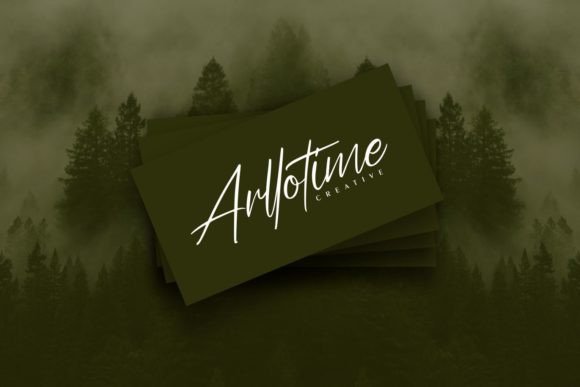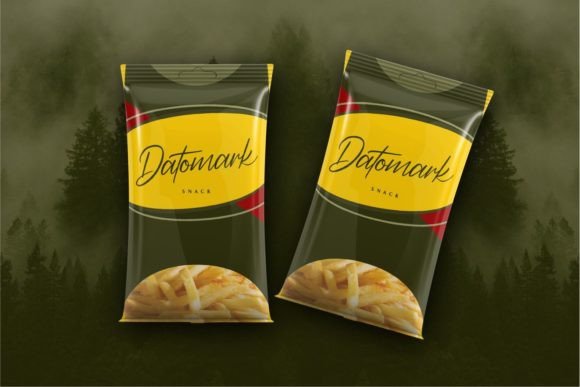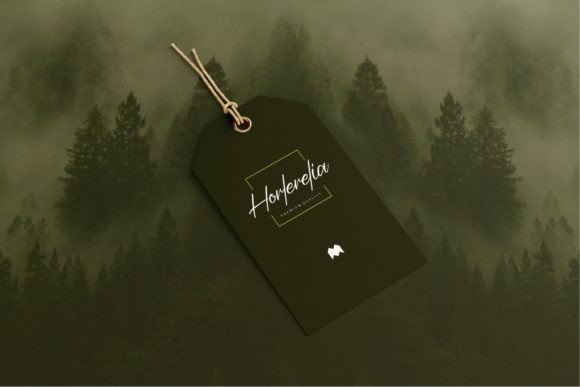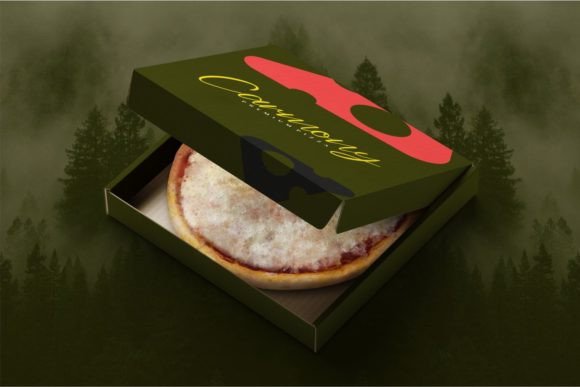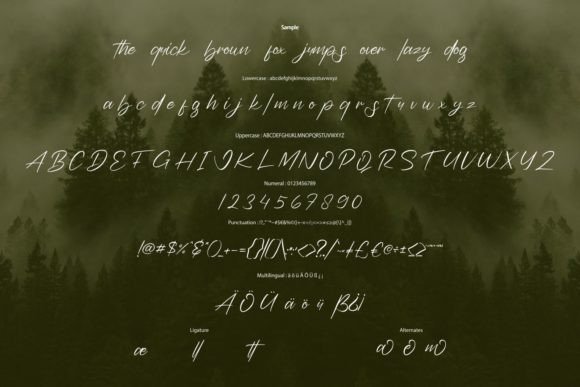
The Magic of Handwritten Fonts: Unlocking Your Creativity with Badoga Signature Font
Have you ever been browsing through your old journals or scrapbooks, only to stumble upon a handwritten note that sparks a wave of nostalgia and creativity? That’s exactly what happened to me the other day, and it got me thinking about the power of handwritten fonts in bringing our ideas to life. Whether it’s a personal project or a professional design, a well-chosen font can make all the difference in conveying our message and adding a touch of personality.
That’s where the Badoga Signature Font comes in – a magical script font that’s carefully crafted with elegance in mind. Designed for Instagram, DIY projects, and beyond, this font is the perfect tool for designers looking to elevate their creative game. With its unique charm and sophistication, the Badoga Signature Font is sure to turn any idea into a stunning piece of art.
Badoga Signature Font Key Features
- Unique Characteristics: The font features a unique blend of modern and elegant styles, making it ideal for creating distinctive signatures, logos, and branding materials.
Badoga Signature Font Review
First off, I love the unique flair that the Badoga Signature Font brings to any design. ✨ The intricate details and swashes are absolutely stunning, and I appreciate how well they add a personal touch to headings and titles. ✨ The font’s flexibility in both uppercase and lowercase letters makes it easy to work with, and the range of styles available helps to create a cohesive look across different designs.
However, I do have a few reservations about the font. ⚠️ For one, I find the x-height to be slightly inconsistent, which can affect the overall readability of text. ⚠️ Additionally, some of the letter combinations may be tricky to decipher, especially for those who aren’t familiar with the font. ⚠️ Finally, I wish the font included more international characters and accents, which would make it more versatile for global designs.
Overall, I’d say the Badoga Signature Font is a solid choice for designers looking to add a touch of elegance and sophistication to their work. With a bit of finesse and attention to detail, this font can truly shine.
- Unique and stylish
- Good flexibility in uppercase and lowercase letters
- Range of styles available
- Inconsistent x-height
- Some letter combinations may be tricky to decipher
- Limited international characters and accents
Badoga Signature Font: A Practical Application Guide
The Badoga Signature Font is ideal for:
- Creating custom typography for branding and marketing materials.
- Adding a personal touch to invitations and event materials.
- Designing unique and eye-catching business cards and letterheads.